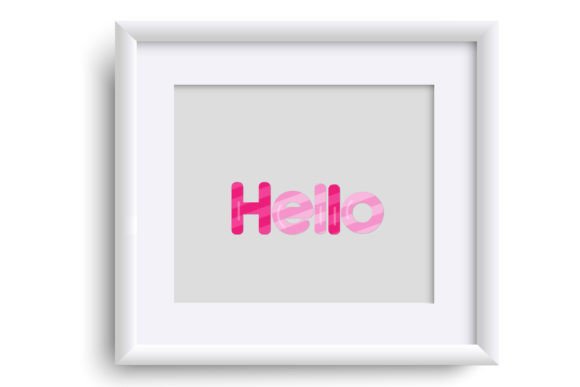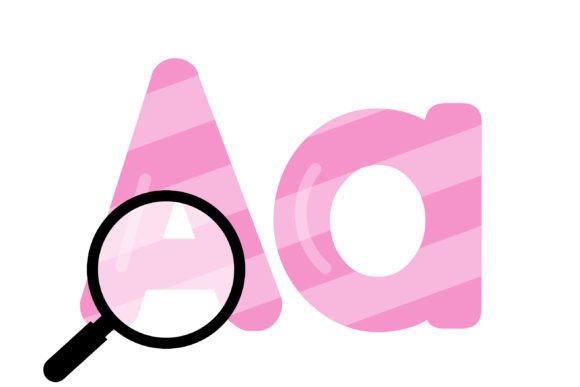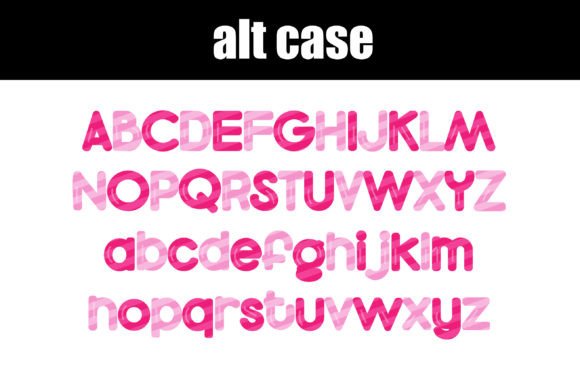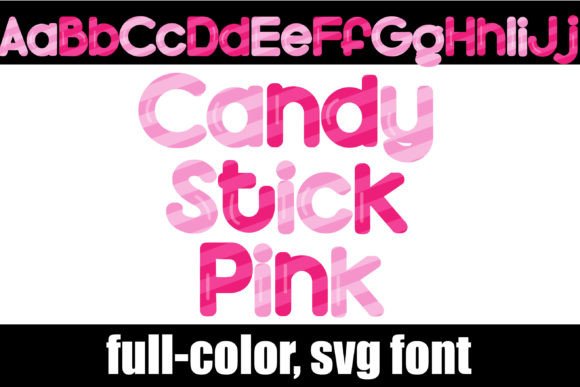
The Sweetest Font You’ll Ever Use: A Deep Dive into Candy Stick Pink Font
I’ll never forget the time I was working on a project for a client’s birthday party invitations. I had a clear vision of what I wanted to create – fun, colorful, and playful – but I was struggling to find the perfect font to match. That’s when I stumbled upon the Candy Stick Pink Font, and it was love at first sight! ✨ The full-color, striped lettering was exactly what I needed to bring my design to life. In this article, I’ll share my experience with this amazing font, its features, and how to make the most of it in your designs.
- ✅ The unique, full-color design that adds a pop of fun to any project
- ✅ The versatility of the font, making it suitable for a wide range of projects, from party invitations to branding materials
- ✅ The alt version of each letter in a different color, which can be accessed through the system or Silhouette’s character map
- ✨ The high-quality, crisp lines that make it perfect for printing and digital use
While the Candy Stick Pink Font is an amazing addition to any design project, there are a few things to keep in mind: ⚠️
- 🤔 Some users may find the font a bit tricky to work with, especially if they’re not familiar with OpenType features or glyphs
- ⚠️ The font may not be suitable for very small text sizes or low-resolution images
The Candy Stick Pink Font was inspired by the classic candy store signs of the 1950s and 60s. The designer wanted to create a font that captured the fun, playfulness, and nostalgia of those iconic signs. With its bold, striped design and colorful alt versions, it’s no wonder this font has become a favorite among designers and crafters.